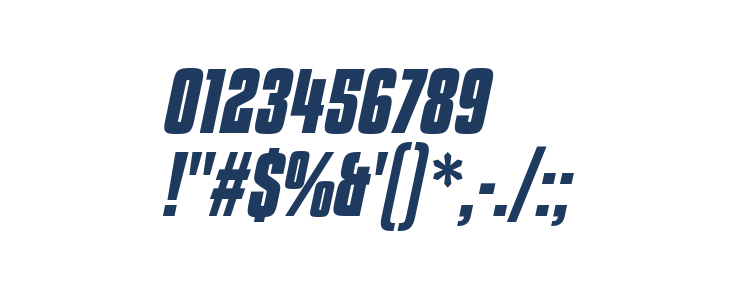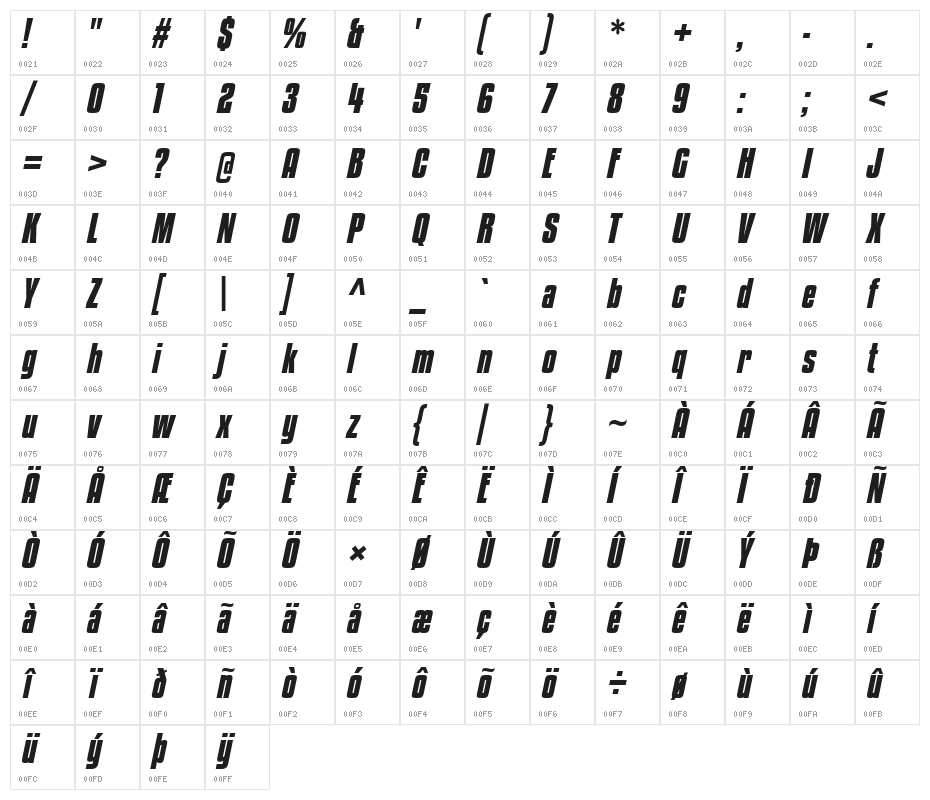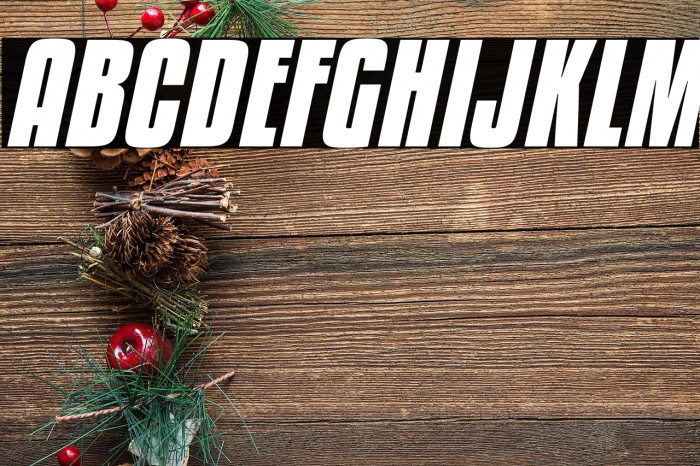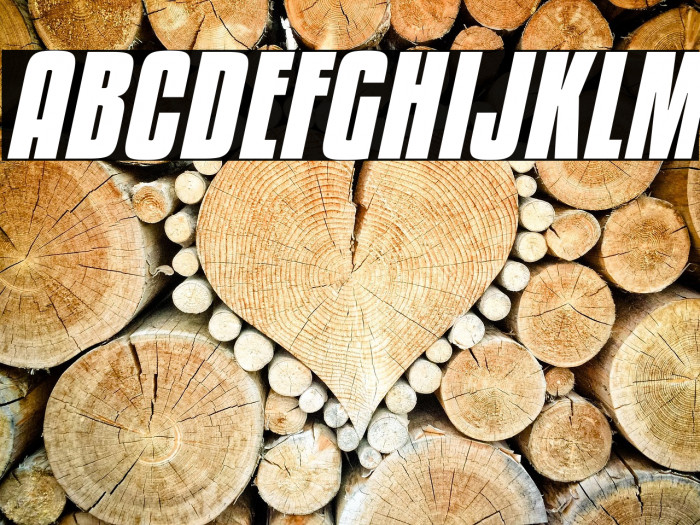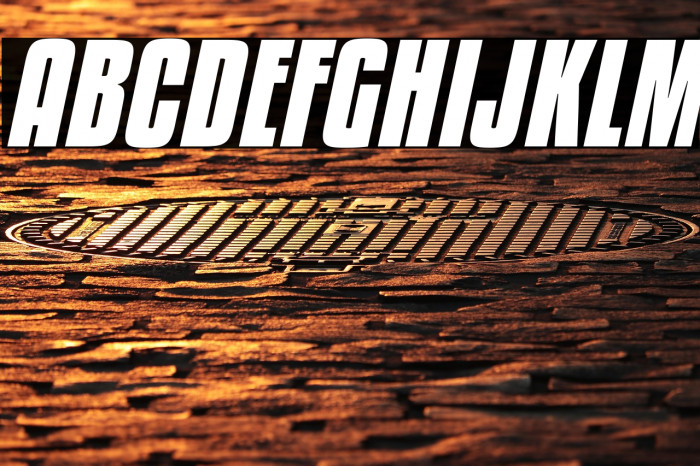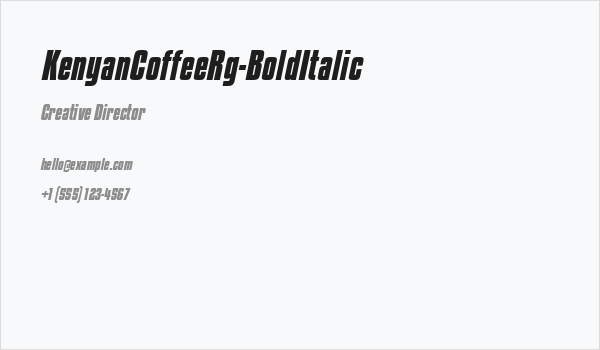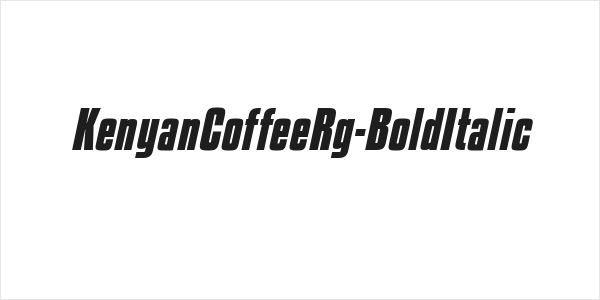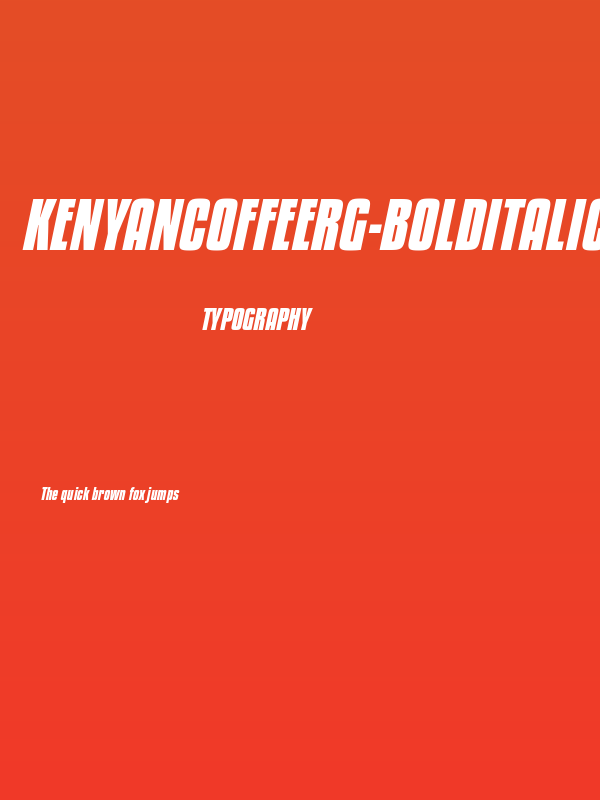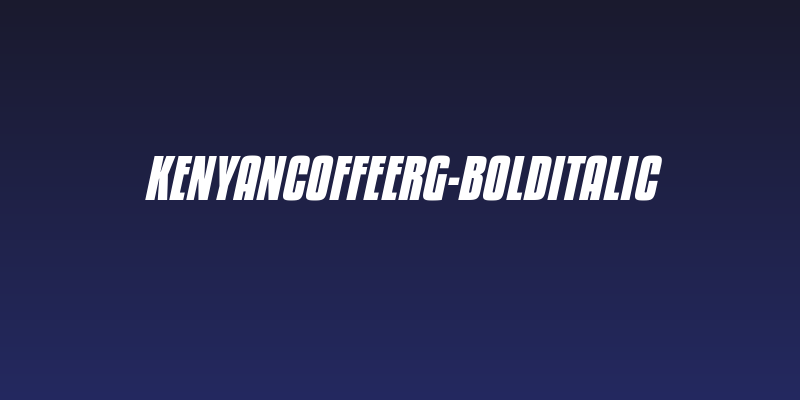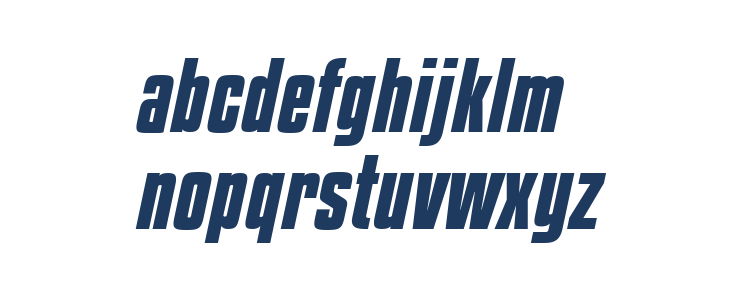
KenyanCoffeeRg-BoldItalic Font
KenyanCoffeeRg-BoldItalic Description
This font exhibits a bold and italicized style with a strong presence. The characters are tightly spaced, giving it a compact and impactful look. The strokes are thick and consistent, providing a high contrast that enhances readability and visual appeal. The uppercase letters are tall and commanding, while the lowercase letters maintain a cohesive flow. Numbers and special characters are designed to match the boldness of the alphabet, making this font suitable for attention-grabbing headlines and titles. Its dynamic slant adds a sense of movement and energy, making it ideal for modern and edgy designs.
| Proposed Projects | Ideal for branding, advertising, posters, and any project requiring a strong, modern aesthetic. |